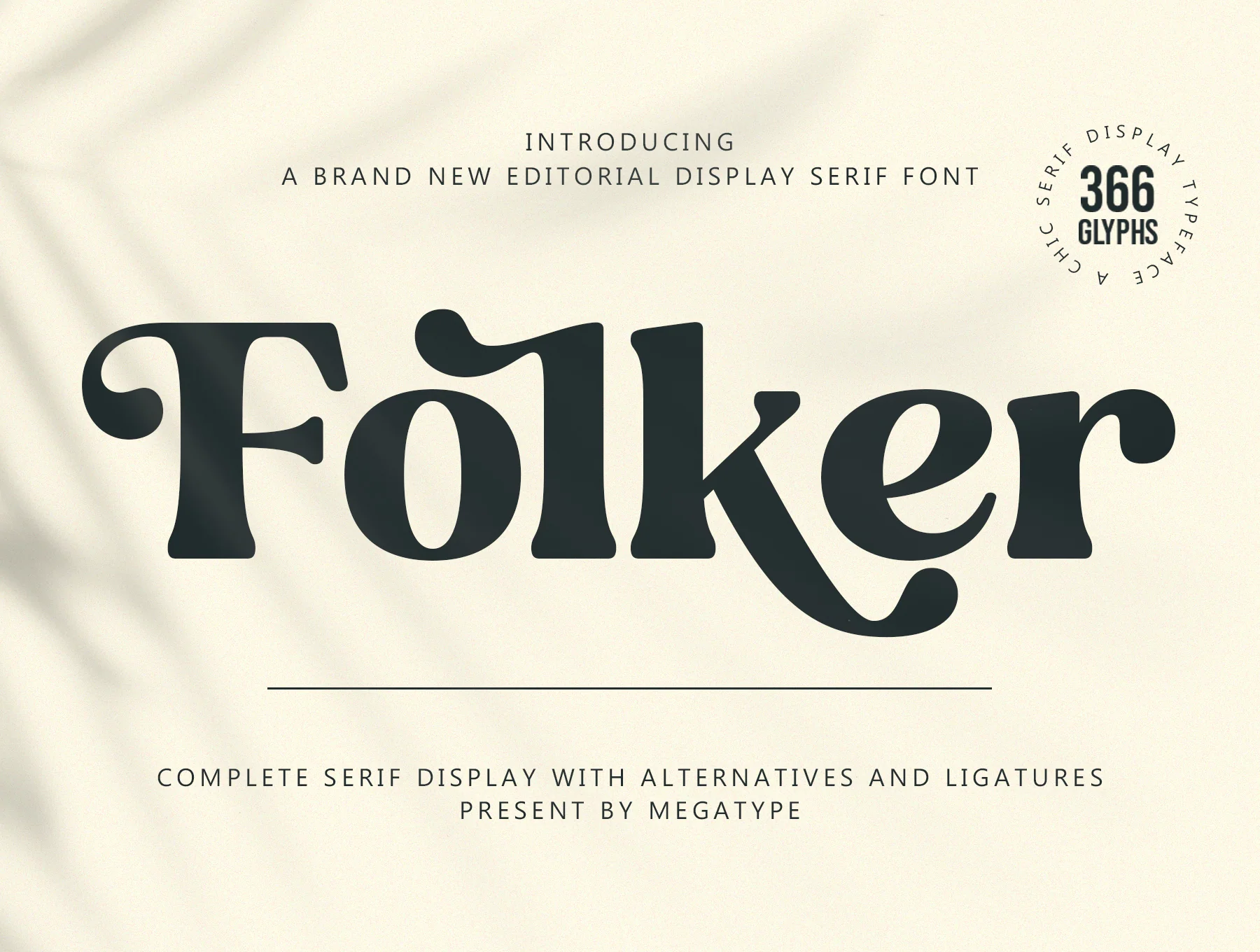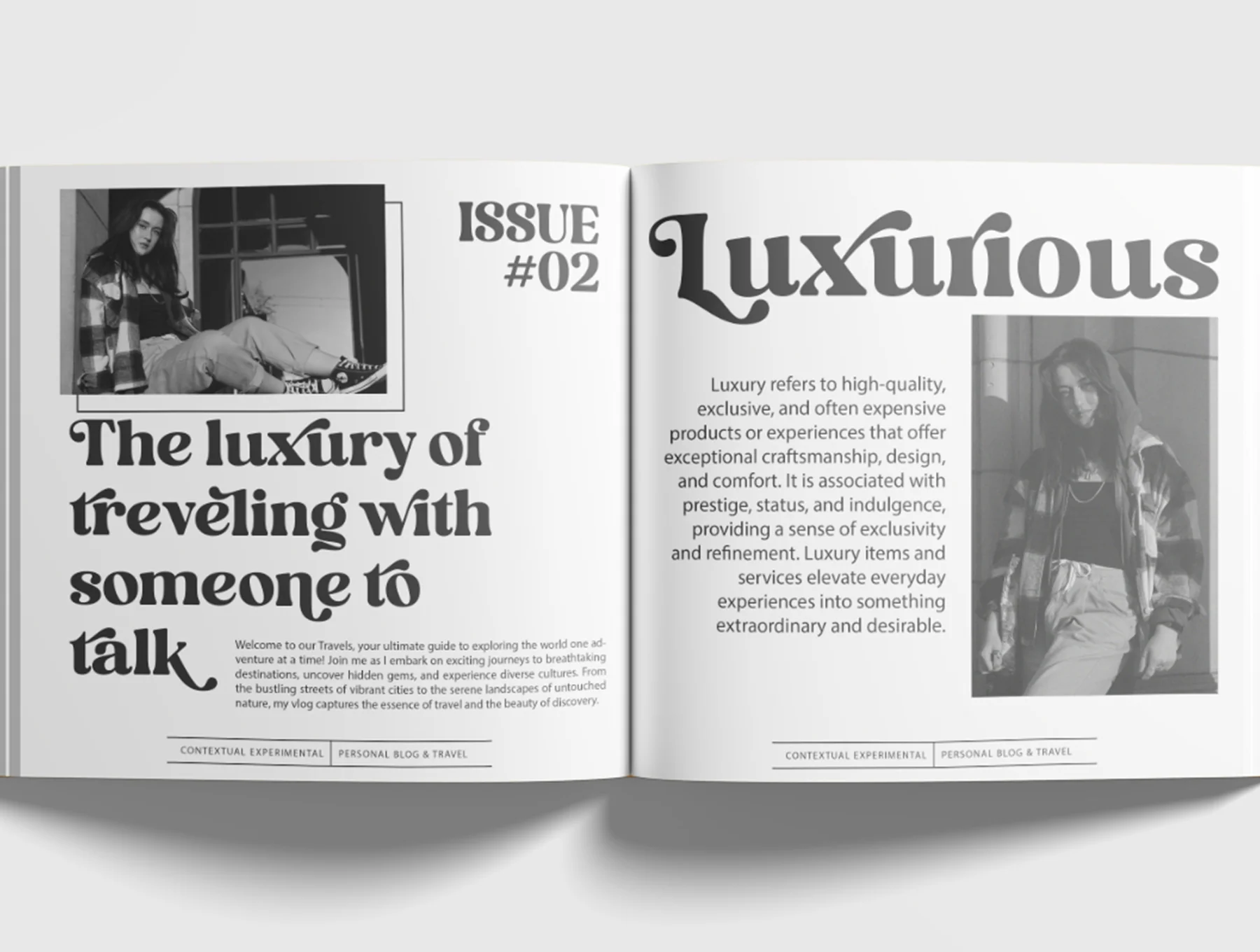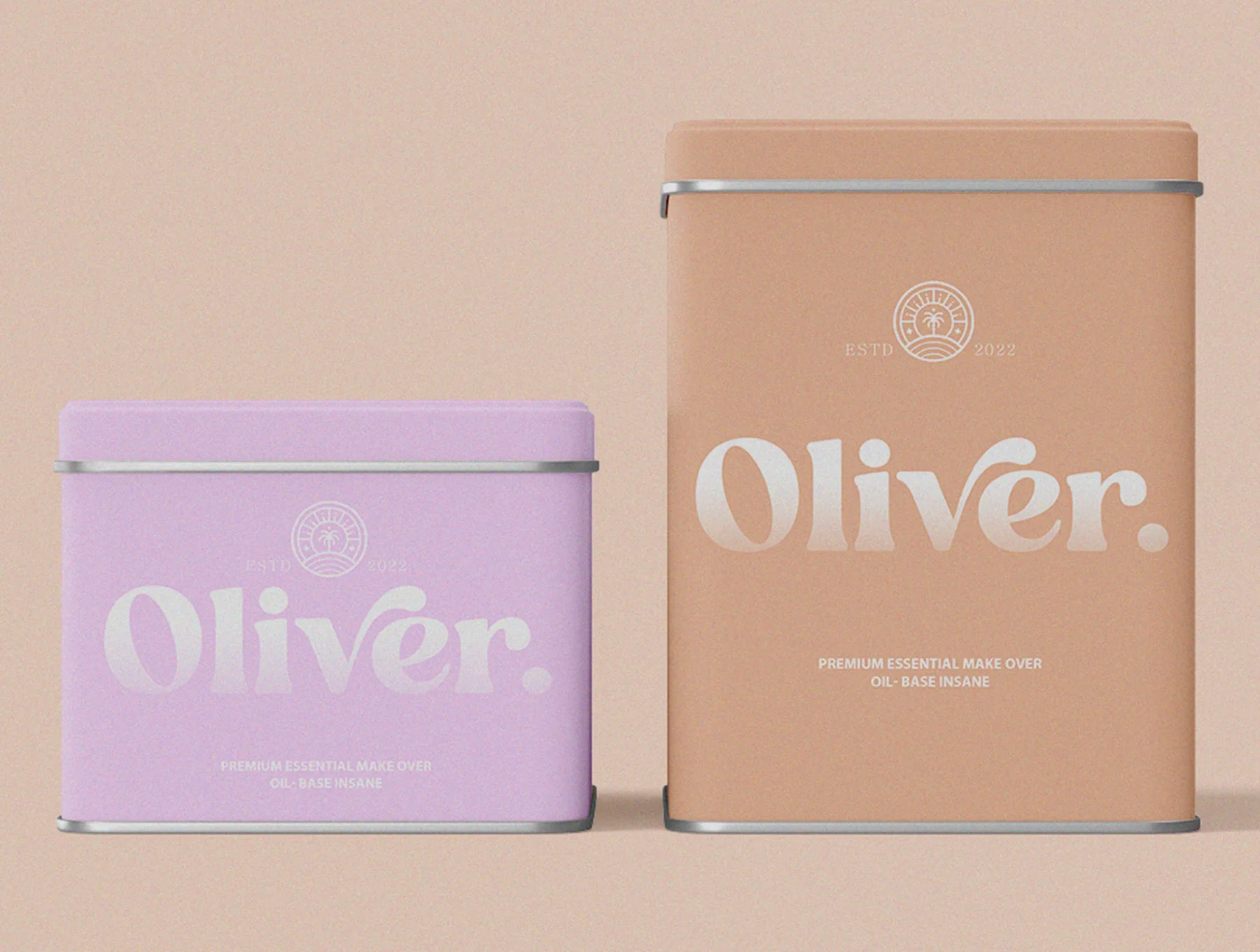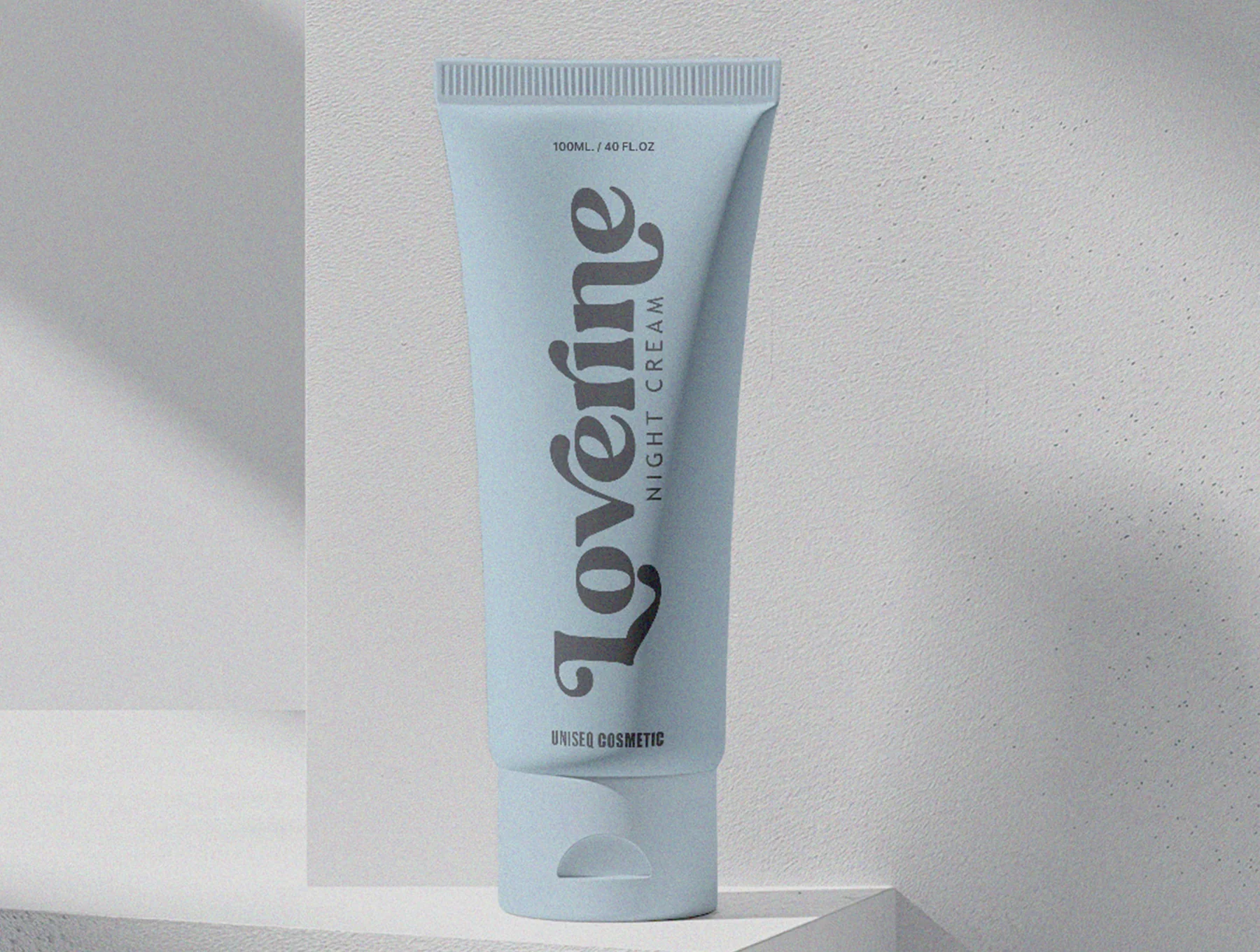
Folker Typeface
Folker is a fresh serif display typeface for editorial design.
Complete uppercase and lowercase set
Numerals and symbol characters
Alternates and ligatures
Meet Folker, a fresh editorial display serif with a modern, elegant, playful, and flexible look. Striking in large formats yet readable in body text, it includes distinctive alternates and ligatures. Ideal for logos, branding, weddings, social posts, ads, packaging, labels, photos, watermarks, and invites. Includes OTF, TTF, WOFF, cases, numbers, symbols, languages, OpenType, PUA.